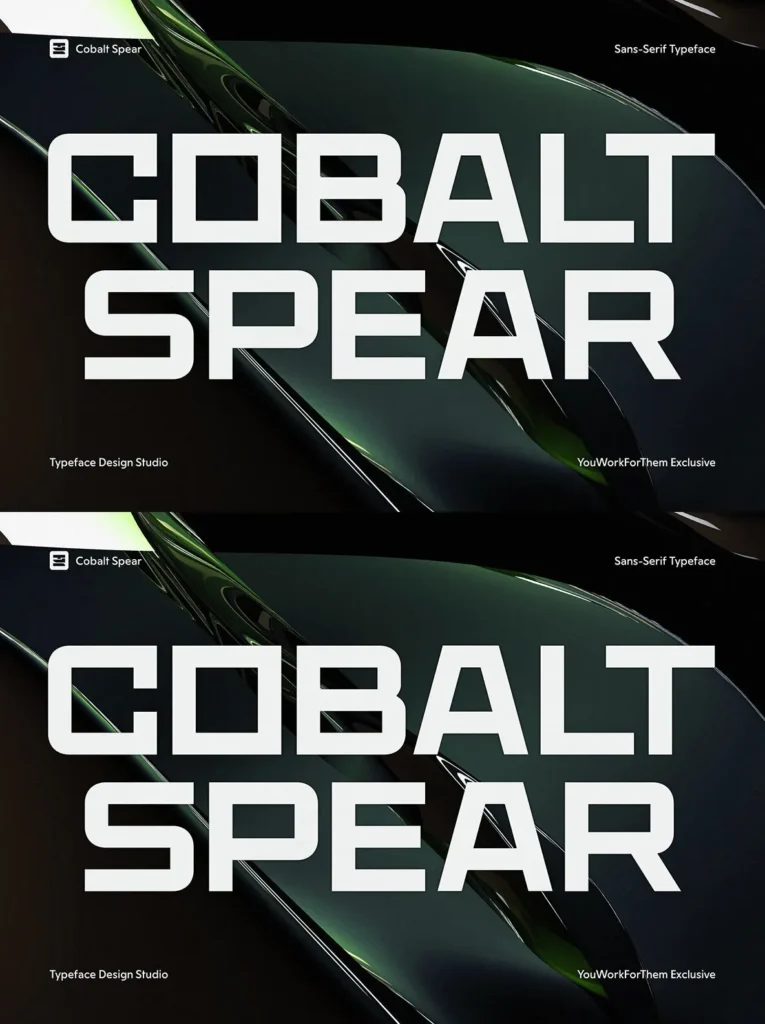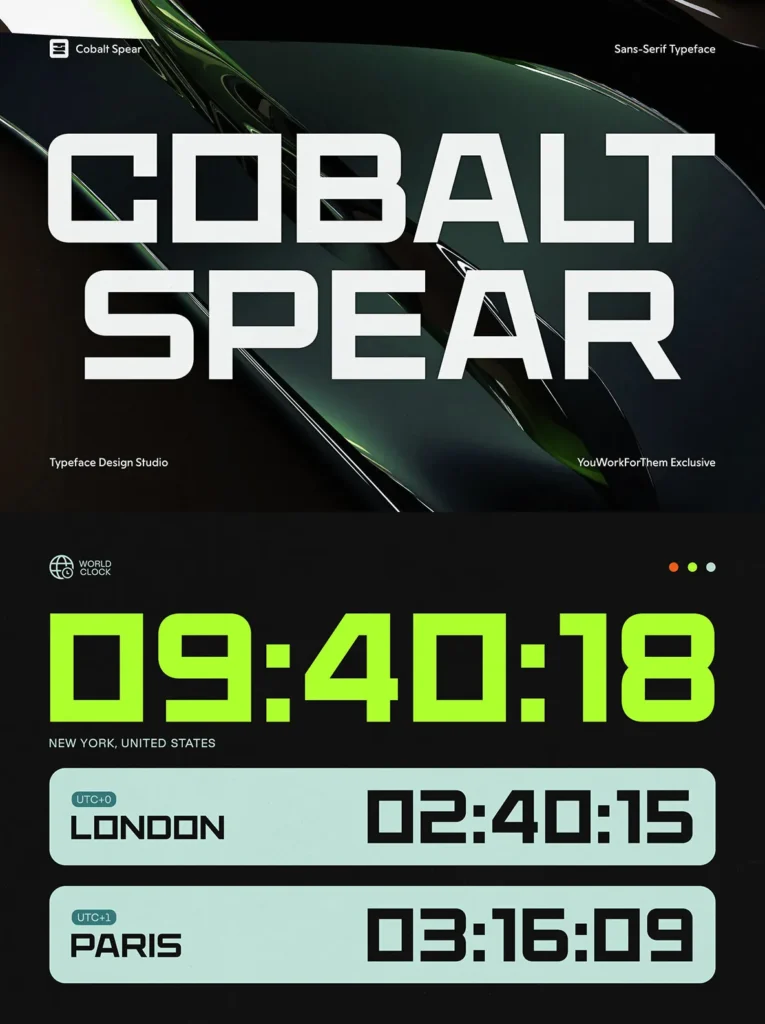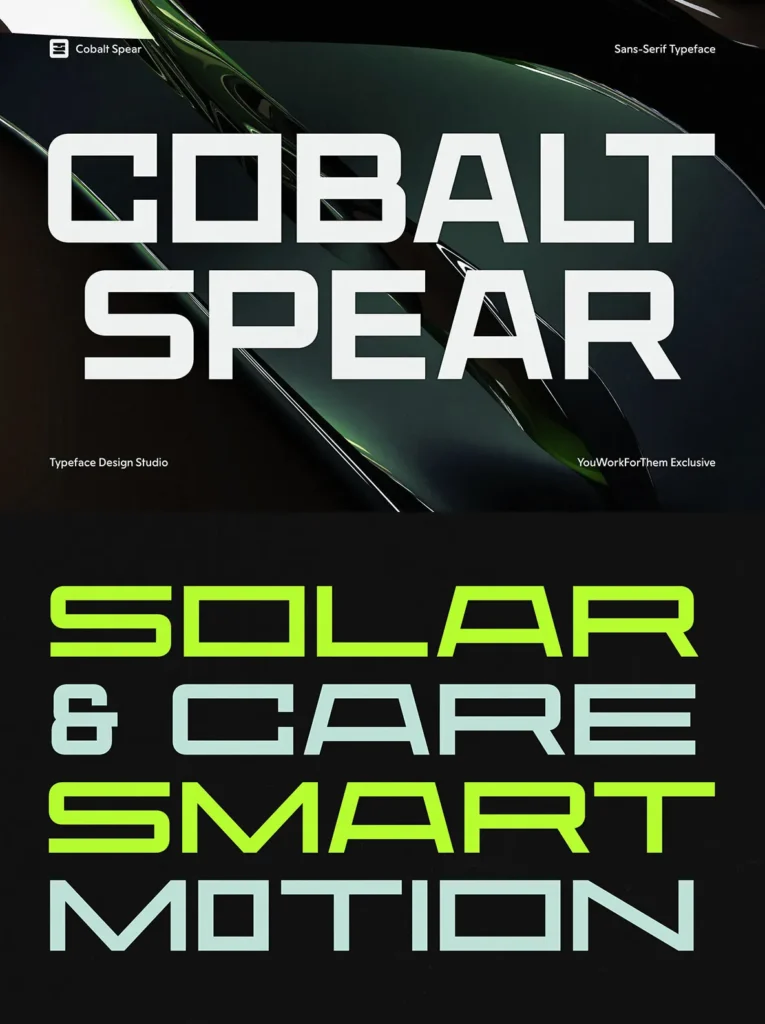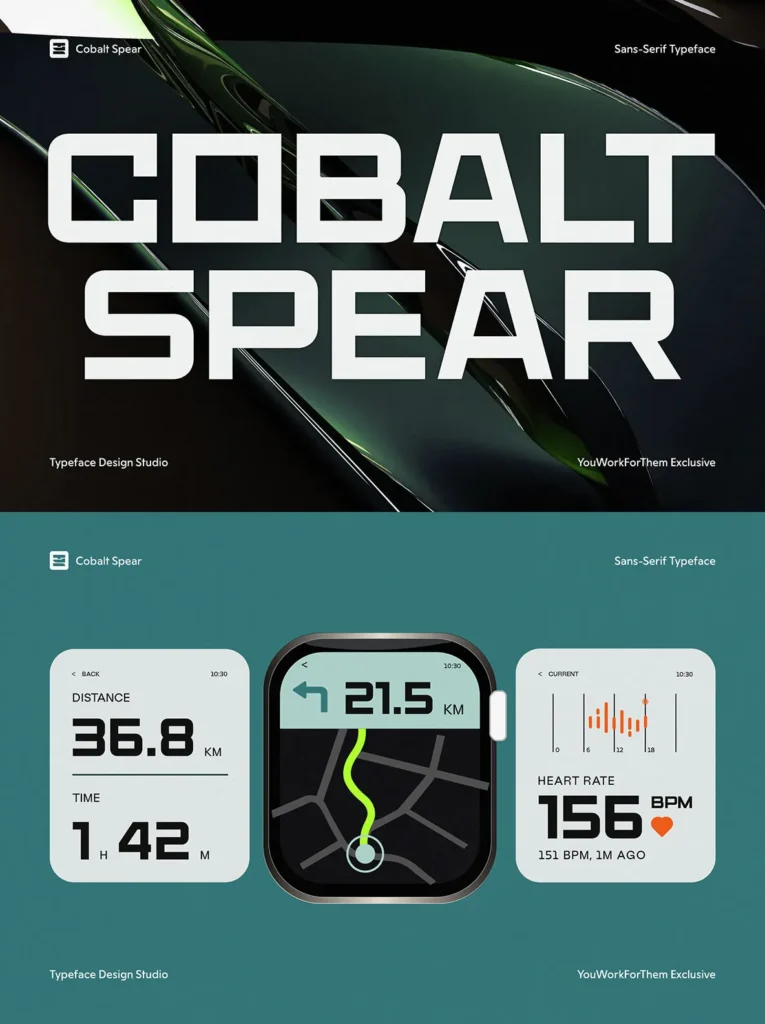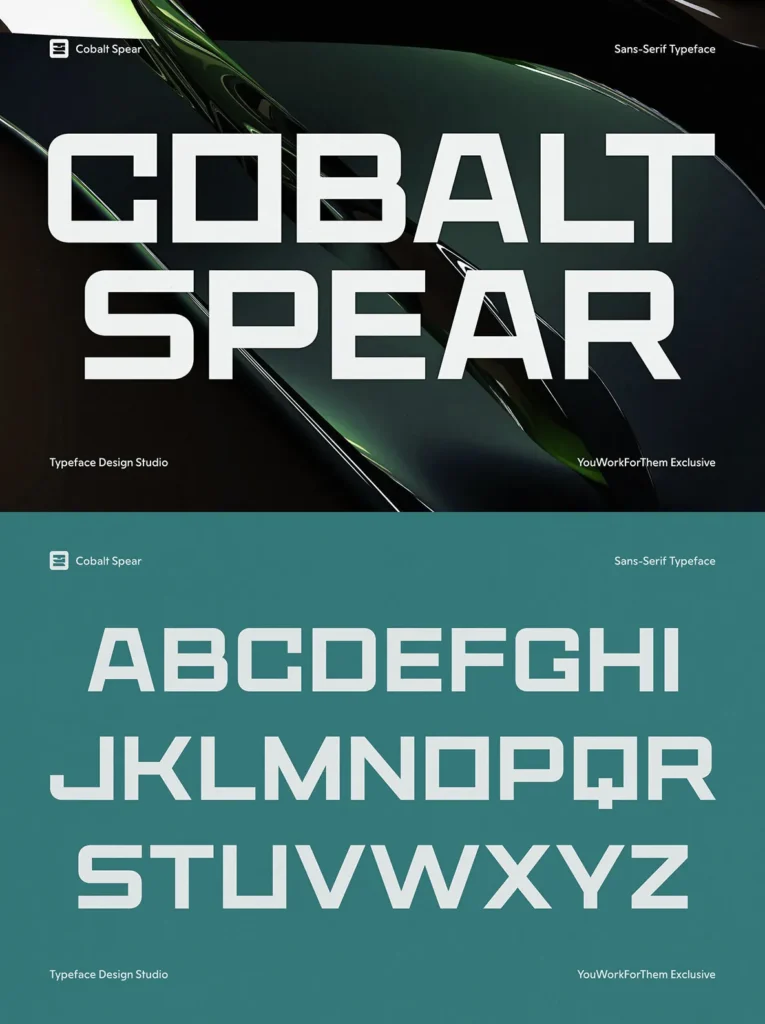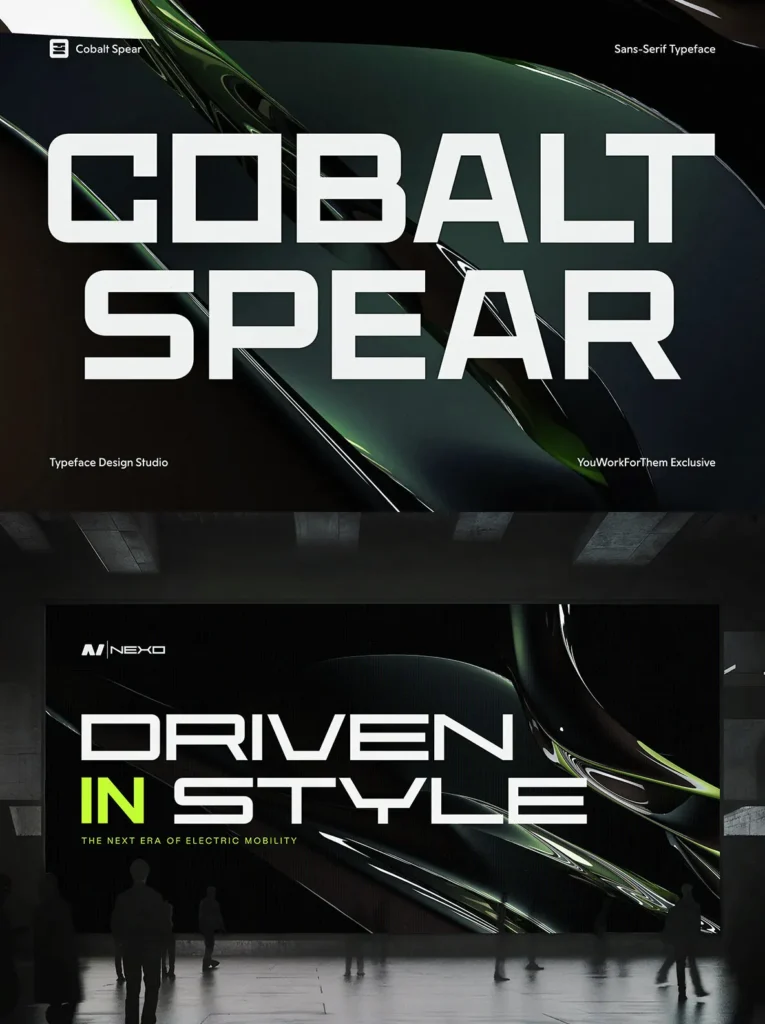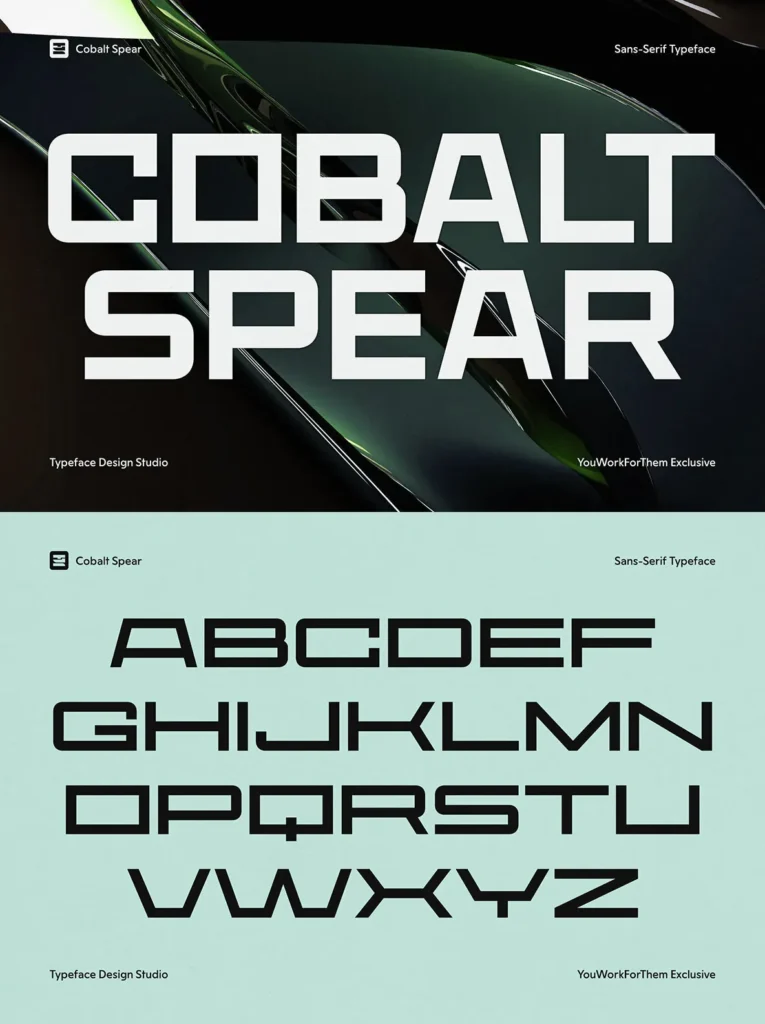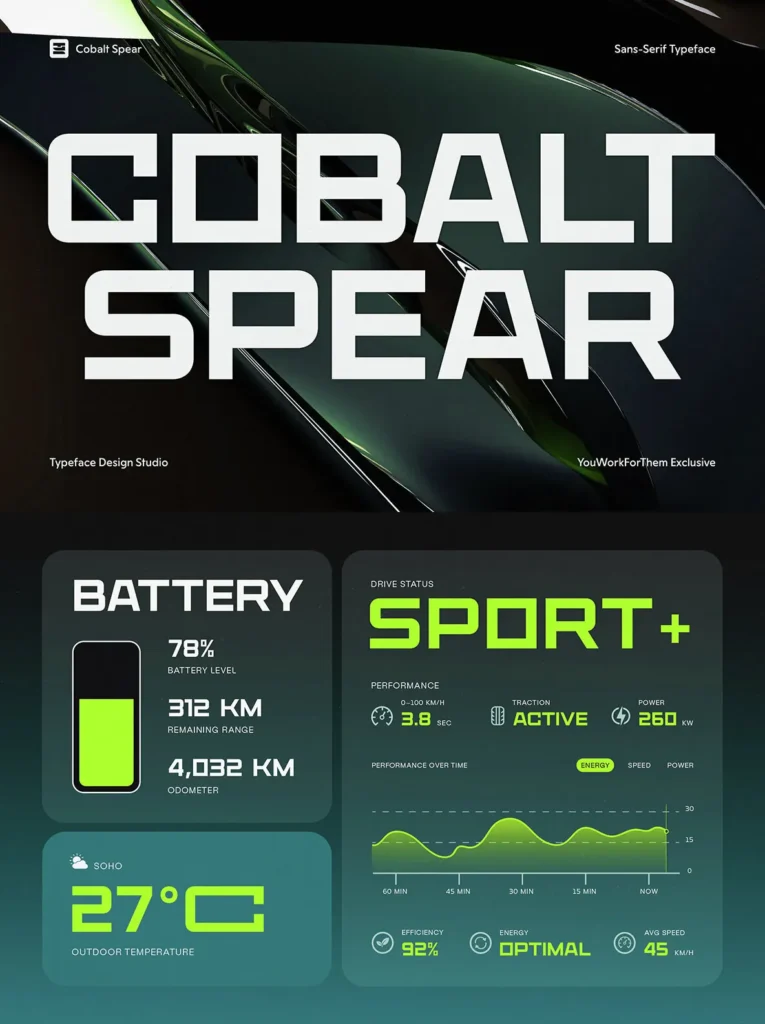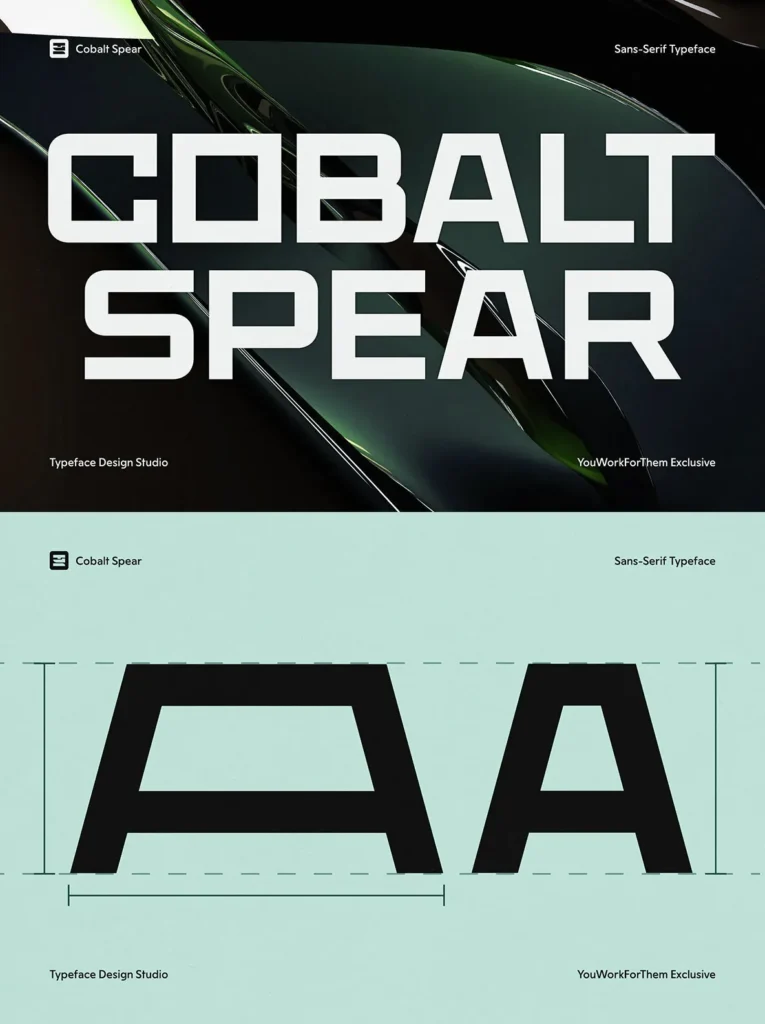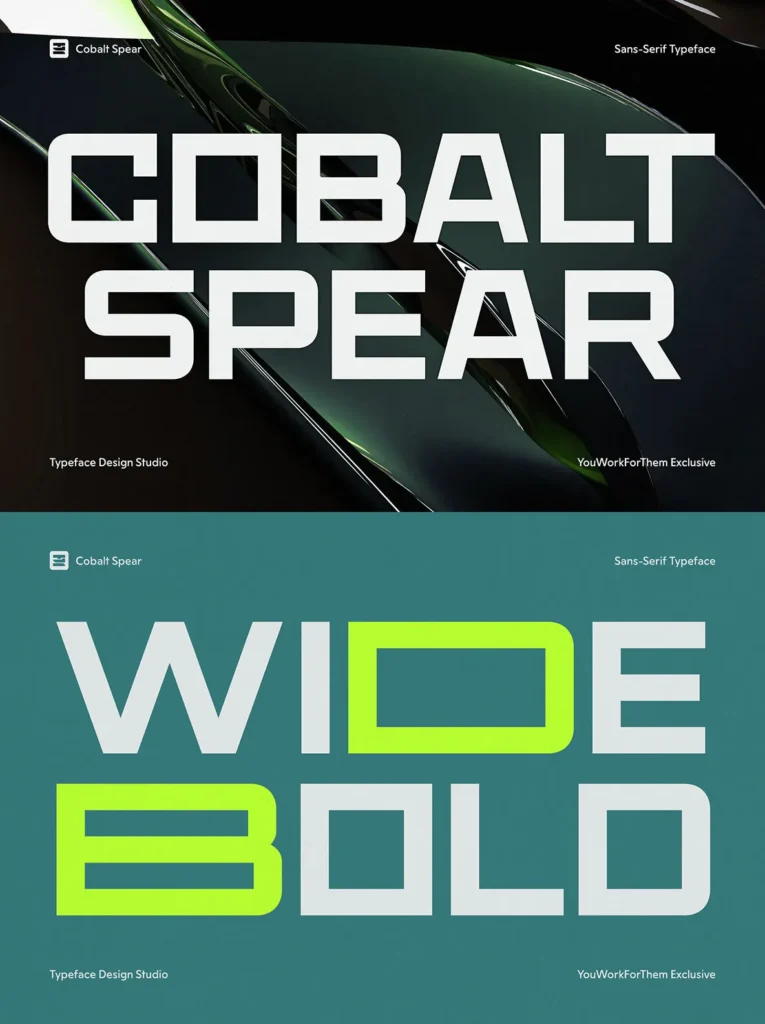
Cobalt Spear Font
Cobalt Spear: Bold Geometric Display Font
Cobalt Spear is a geometric display typeface defined by wide, bold capital letters designed to create visual impact. Its extended proportions and clean lines provide a modern, industrial aesthetic that stands out in headlines, logos, posters, and branding projects. Despite its strong character, legibility remains high, making each message clear and direct, even at large sizes.
This font is ideal for designers seeking a typeface with a commanding presence. The structure balances futuristic appeal with precise geometry, ensuring it fits seamlessly into contemporary design settings. Its accessible construction allows for easy use across professional design platforms, offering reliable performance and flexible application.